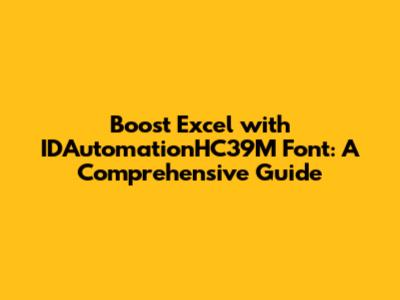
Hey there, data wizards! Ever wished you could spice up your Excel spreadsheets with something a little more… unique? Today, we're diving deep into the IDAutomationHC39M font and how it can revolutionize the way you manage and present information within your Excel environment. This isn't just about prettying things up; it's about adding functionality, efficiency, and a touch of cool. Ready to transform your data into dynamic, scannable codes? Let’s get started.
Understanding the Power of IDAutomationHC39M Font in Excel
Alright, first things first: what exactly is the IDAutomationHC39M font? Simply put, it's a specialized barcode font designed to generate Code 39 barcodes. Code 39 is a widely used barcode symbology, perfect for various applications, from inventory tracking to asset management. The beauty of this font lies in its simplicity. You can create barcodes directly within Excel by simply typing the appropriate characters and formatting them with the IDAutomationHC39M font. This removes the need for external barcode generators, making your workflow smoother and your life a whole lot easier, trust me.
Think about it: instead of manually typing product codes or serial numbers, you can generate a scannable barcode with just a few clicks. This is a game-changer for data entry, reducing errors and saving you precious time. Imagine the possibilities! Inventory management becomes a breeze, shipping labels are created in seconds, and tracking assets within your company is now a piece of cake. This makes the IDAutomationHC39M font for Excel more than just a font; it is an invaluable tool for boosting productivity and data accuracy. The font's design ensures that the barcodes are easily readable by most barcode scanners, making it a reliable solution for any business. With this font, you can easily turn your boring spreadsheets into dynamic, functional data hubs. It is a fantastic tool that helps boost your productivity, saves time, and minimizes errors. The implications are endless, ranging from streamlining warehouse operations to improving customer service by speeding up order processing and deliveries. It's time to get a good understanding of what the IDAutomationHC39M font is capable of and how it can transform the way you do business.
Furthermore, this font provides you with a direct way to create barcodes without relying on external software or complicated procedures. This greatly increases efficiency while simultaneously minimizing the probability of data entry mistakes. This font is a must-have tool for companies and individuals looking to simplify their data management and boost operational efficiency. Also, by reducing the reliance on external applications, you also reduce the chances of encountering compatibility issues or software conflicts, ensuring a seamless and reliable barcode generation process. The ability to create barcodes directly within Excel provides an extra layer of versatility and control over your data, offering the capacity to seamlessly integrate barcode functionalities into already existing workflows. By taking full advantage of the IDAutomationHC39M font, you can transform your spreadsheets into more powerful and user-friendly tools that fulfill a wide range of needs.
One of the main benefits of using the IDAutomationHC39M font in Excel is its remarkable simplicity and convenience. You can effortlessly generate barcodes by typing the relevant data and selecting the font. This is a quick and simple process, even for users with little to no prior experience with barcode generation. The user-friendly design of the font allows users to create barcodes directly within the familiar environment of Excel. This eliminates the need for any complex software and complicated procedures, simplifying the overall workflow and saving valuable time. Another significant benefit is the remarkable improvement in accuracy and efficiency that it brings to data entry processes. Barcodes reduce the risk of manual errors and significantly speed up the data entry process by making scanning information much quicker and reliable than manual input. This results in reduced operational expenses, enhanced productivity, and increased customer satisfaction. The IDAutomationHC39M font provides a powerful and easy-to-use solution for businesses of all sizes, making it an invaluable tool for simplifying data management and boosting operational efficiency. It enables you to quickly generate barcodes directly in Excel with little to no trouble. Its functionality increases accuracy, saves time, and streamlines operations. The IDAutomationHC39M font is more than just a font; it’s an investment in increased efficiency, accuracy, and overall operational excellence.